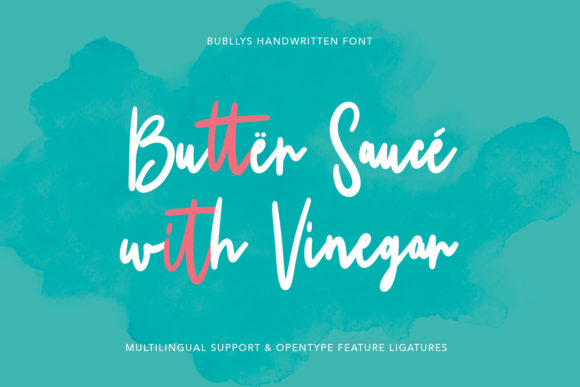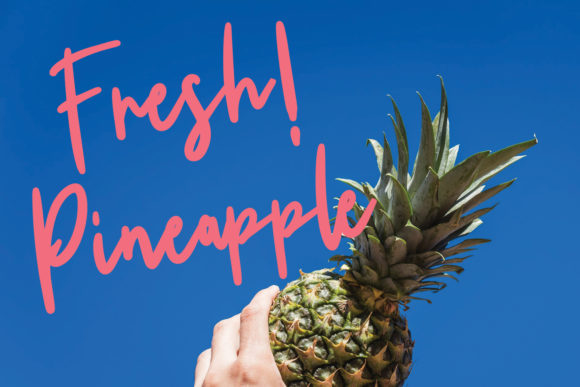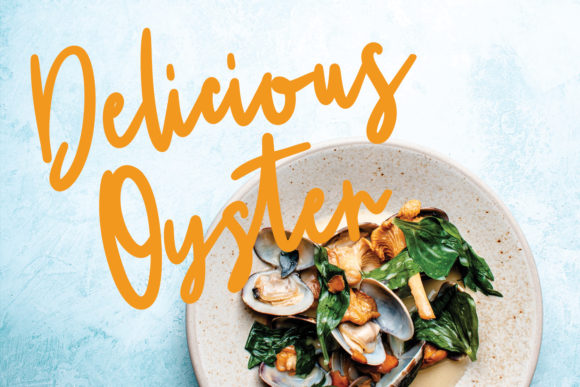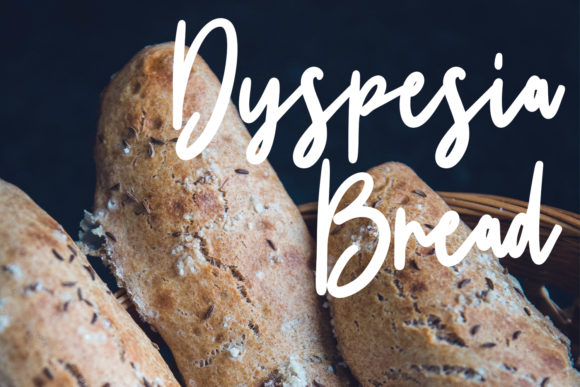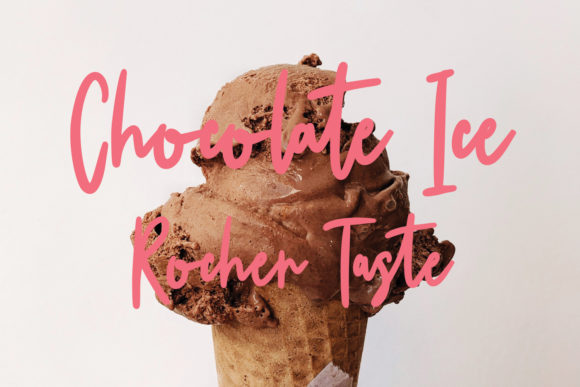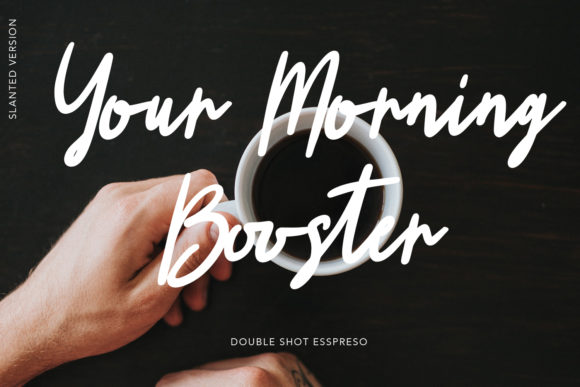
Bubllys Font: Adding a Touch of Whimsy to Your Creative Projects
In the world of typography, fonts play a crucial role in conveying the tone and personality of a brand or project. If you’re a designer, crafty DIY enthusiast, or social media influencer looking for a fun and playful font to add some excitement to your work, look no further than Bubllys Font. This delightful handwritten font is perfect for creative projects that require a dash of whimsy and personality.
What is Bubllys Font?
Bubllys is a fun handwritten font that exudes playfulness and creativity. Its unique and irregular letterforms make it an excellent choice for designers and crafters who want to add a personal touch to their work. Whether you’re creating inspirational wall posters, branding materials, or social media graphics, Bubllys Font is sure to bring a smile to your audience’s faces.
Characteristics of Bubllys Font
So, what makes Bubllys Font so special? Here are some of its key characteristics:
- Handwritten feel: Bubllys Font has a genuine handwritten feel that makes it perfect for projects that require a personal touch.
- Playful and whimsical: The font’s irregular letterforms and varying line widths give it a playful and whimsical feel that’s sure to capture your audience’s attention.
- Highly legible: Despite its playful nature, Bubllys Font is highly legible, making it suitable for use in a variety of applications, from headlines to body copy.
- Versatile: Bubllys Font can be used in a wide range of creative projects, from posters and flyers to social media graphics and branding materials.
Uses for Bubllys Font
Bubllys Font is an incredibly versatile font that can be used in a variety of creative projects. Here are some ideas to get you started:
- Inspirational wall posters: Add a motivational quote or message to your wall with Bubllys Font, and watch as it brightens up your space.
- Branding materials: Use Bubllys Font to create unique and eye-catching branding materials, such as business cards, brochures, and letterheads.
- Social media graphics: Add a touch of personality to your social media graphics with Bubllys Font, and watch as it helps you stand out from the crowd.
- DIY crafts: Bubllys Font is perfect for DIY crafters who want to add a personal touch to their projects, from handmade cards to customized gift tags.
Tips for Using Bubllys Font
Here are some tips for getting the most out of Bubllys Font:
- Use it sparingly: While Bubllys Font is playful and fun, it can be overwhelming if used excessively. Use it sparingly to add emphasis and personality to your work.
- Pair it with other fonts: Bubllys Font pairs well with other fonts, such as sans-serif fonts like Arial or Helvetica. Experiment with different pairings to find the one that works best for your project.
- Experiment with colors: Bubllys Font looks great in a variety of colors, from bold and bright to soft and pastel. Experiment with different colors to find the one that works best for your project.
Bubllys Font is a fun and playful handwritten font that’s perfect for creative projects that require a dash of whimsy and personality. Its unique and irregular letterforms make it an excellent choice for designers, crafters, and social media influencers who want to add a personal touch to their work. With its highly legible and versatile nature, Bubllys Font is sure to become a favorite in your font collection.